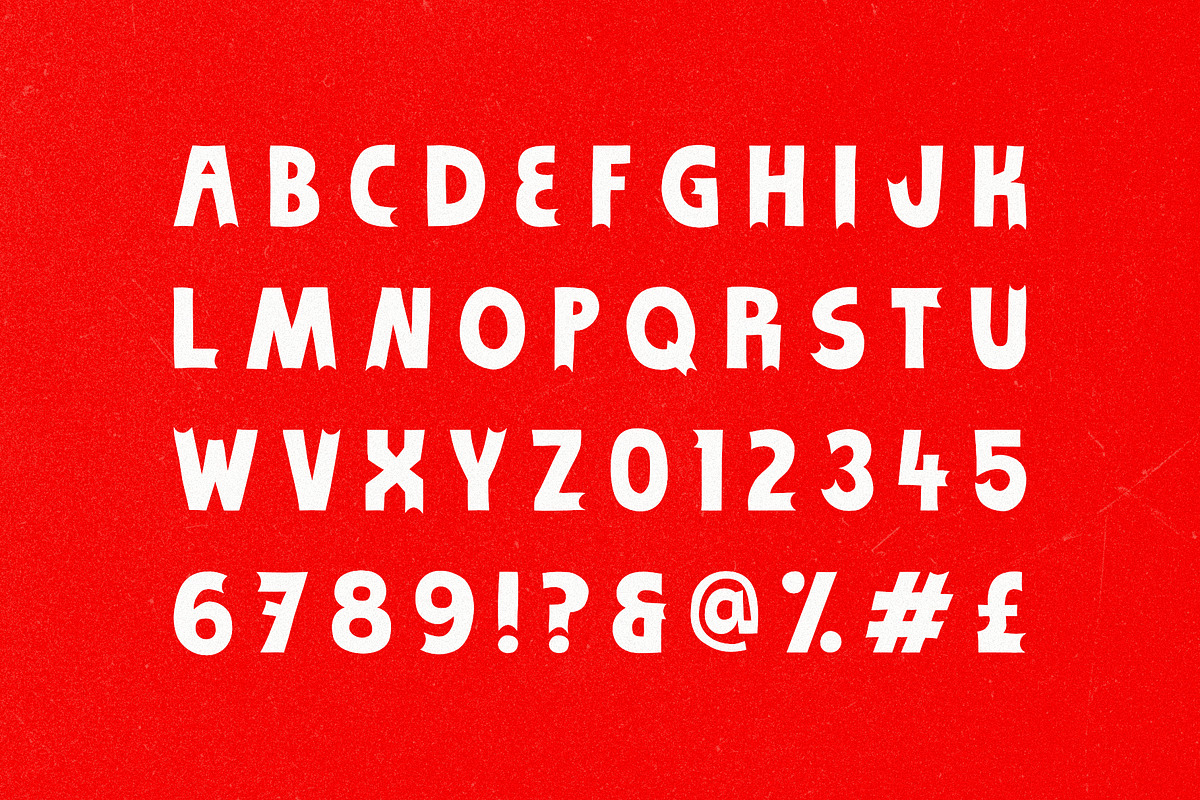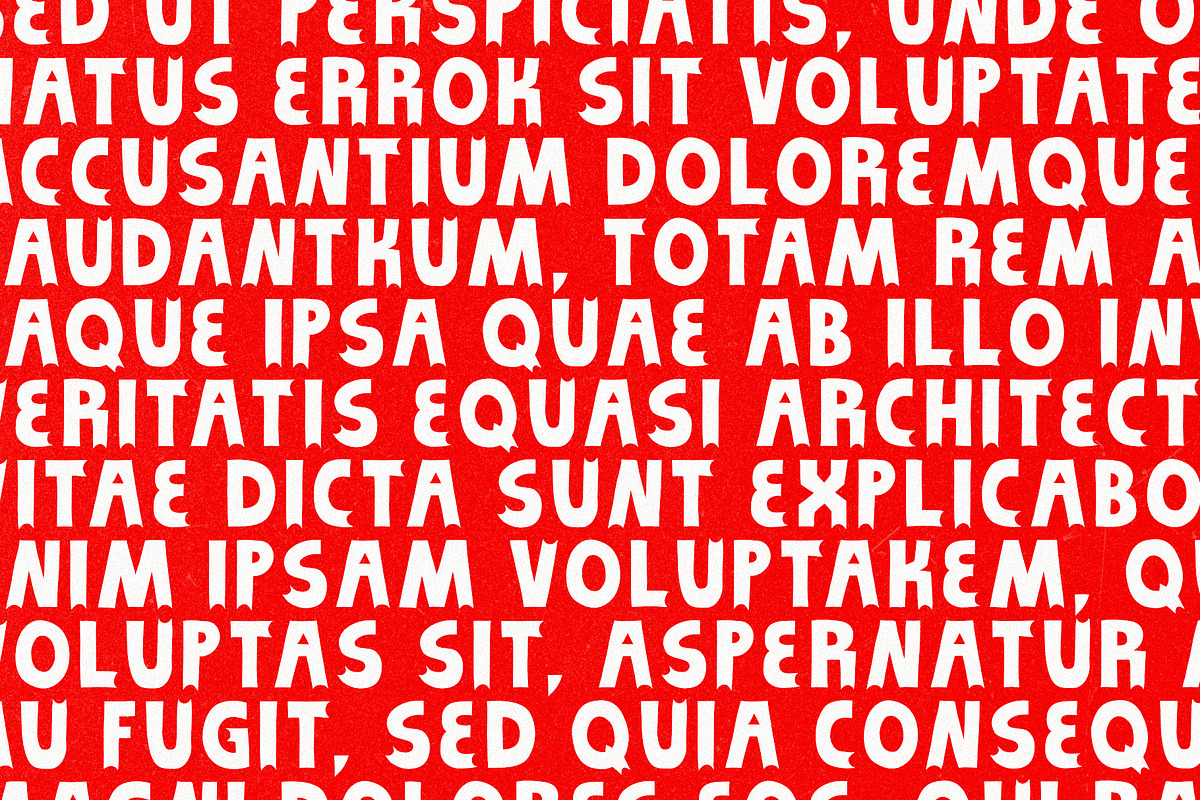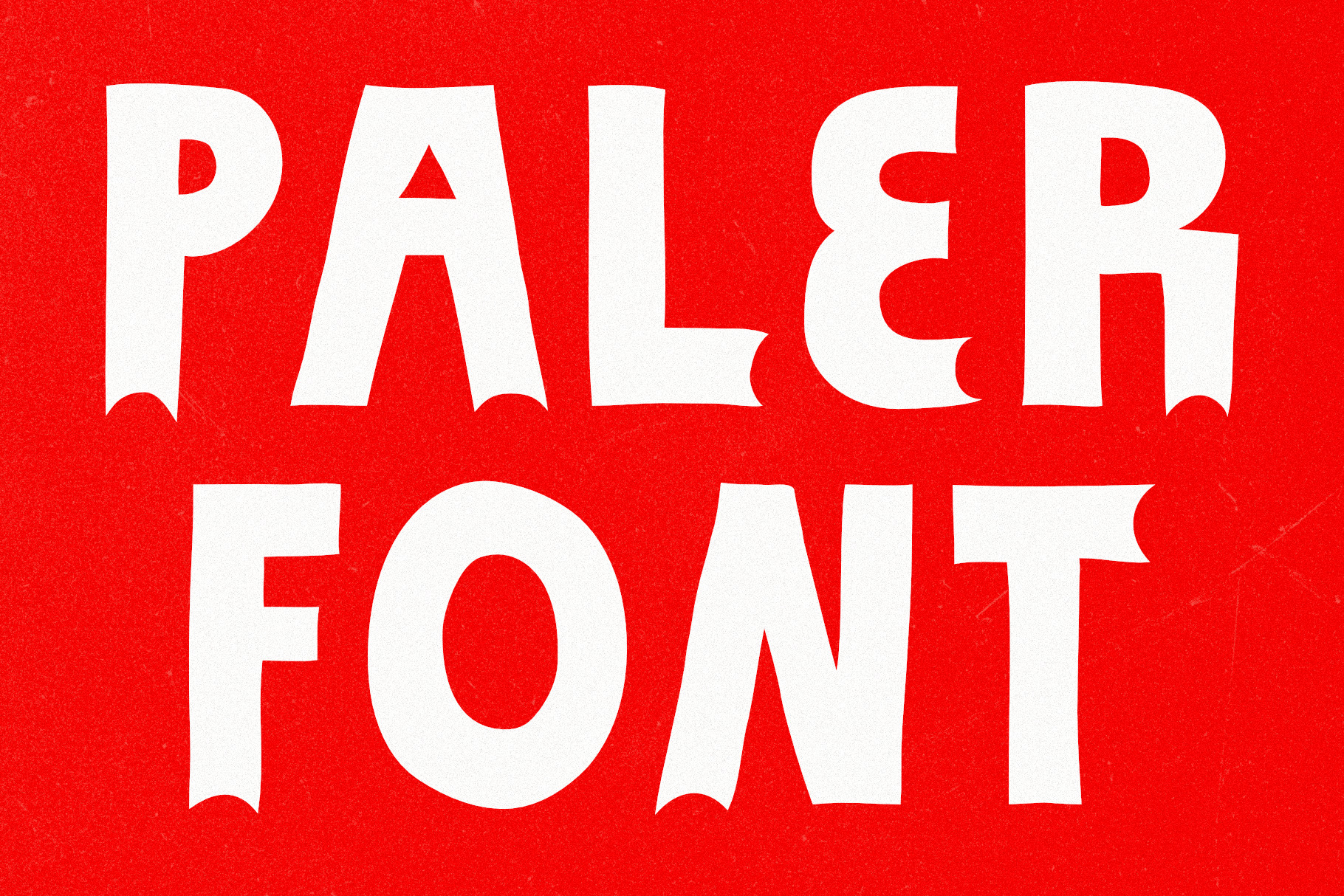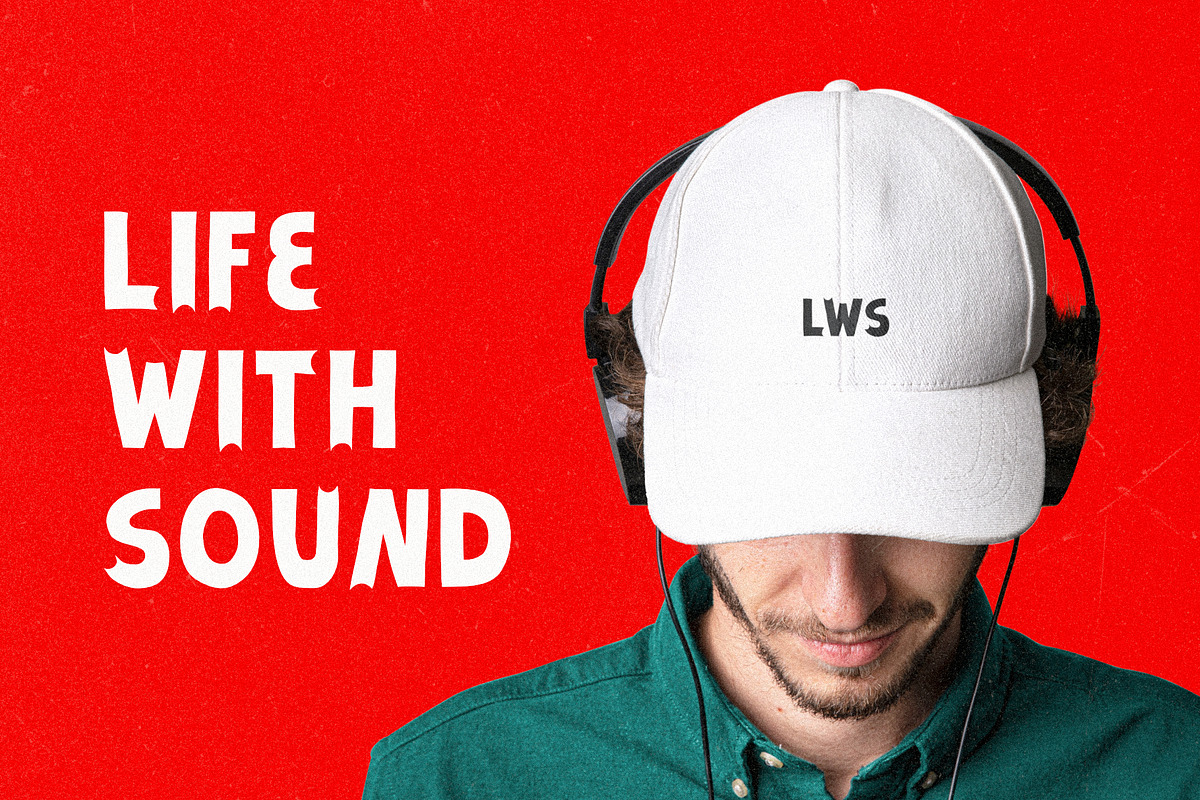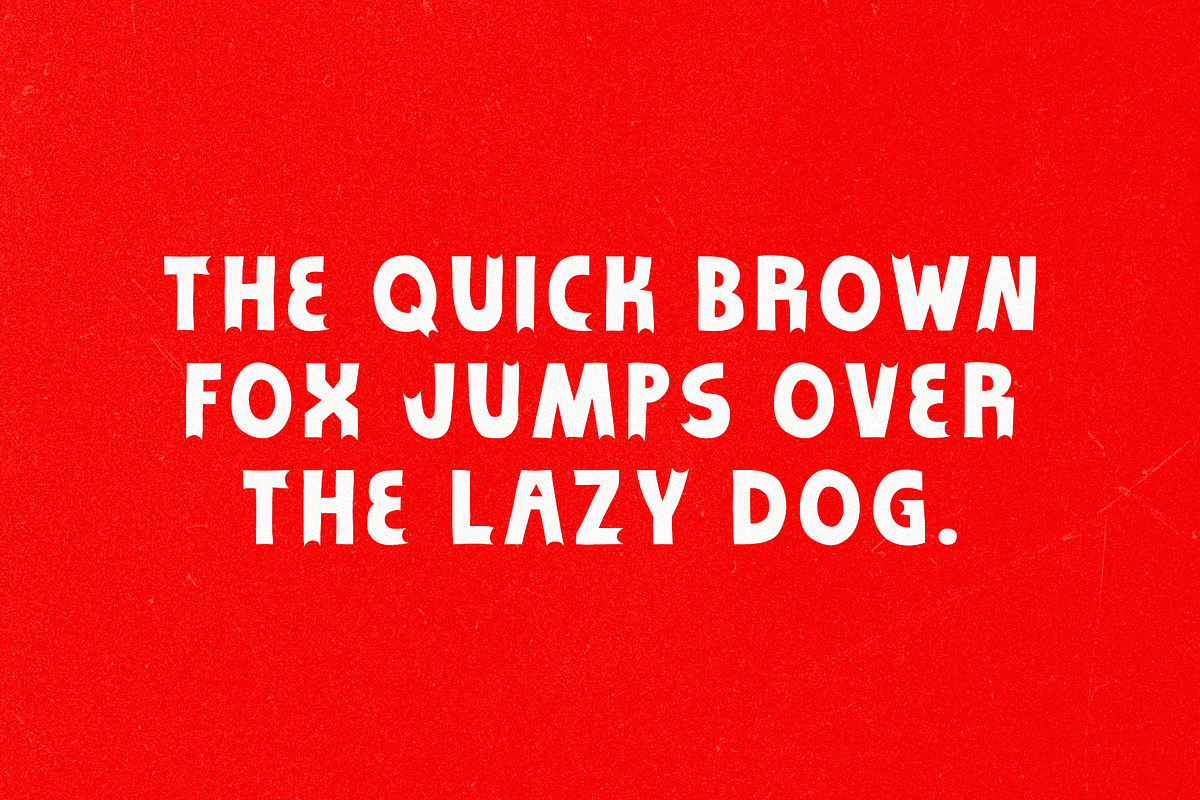
Paler | Handmade Display Font
Paler Display is a hand-drawn font. Perfect for graphic designs with an intriguing style. The font will work well in poster design, branding, logo design and clothing branding.